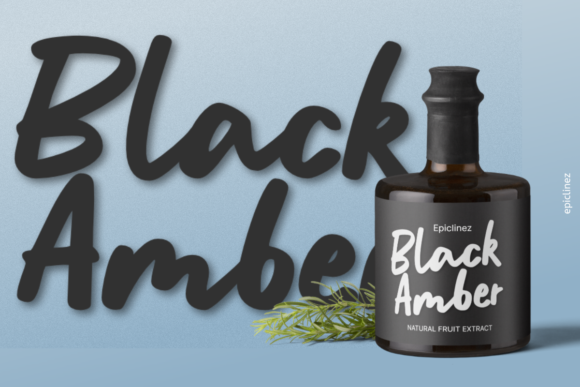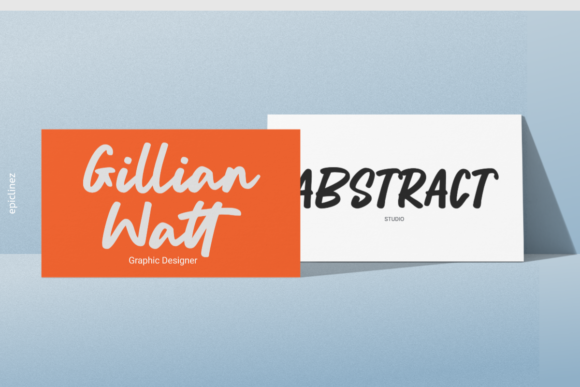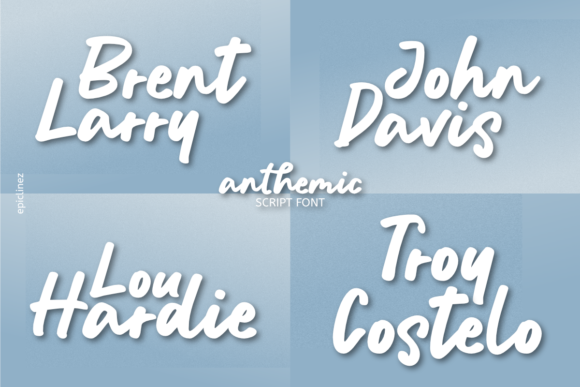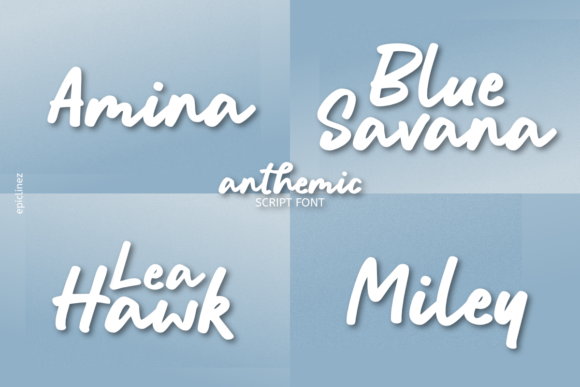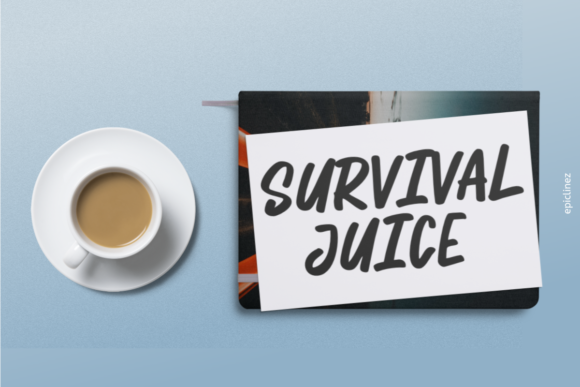
Unlock the Power of Anthemic Font
There’s nothing quite like the rush of creating something truly special – the moment when all the pieces come together and your design or craft takes on a life of its own. You’ve poured your heart and soul into it, and you can’t wait to share it with the world. But, let’s be real – the right font can make all the difference.
That’s where the Anthemic Font comes in – a bold, beautiful script font that’s as versatile as you are. With its PUA encoding, you’ll have access to a world of available glyphs and swashes at your fingertips. Whether you’re a seasoned designer or a crafty creative, the Anthemic Font is the perfect tool to help you bring your vision to life.
Key Features of Anthemic Font
- Font Size and Style: The font family includes 4 weights (Thin, Light, Regular, and Bold) and 3 styles (Upright, Italic, and Oblique), providing a range of options for creative expression.
- Unique Characteristics: The font features a unique blend of modern and vintage elements, with intricate details and subtle textures that evoke a sense of nostalgia and sophistication.
Anthemic Font Review
When I first laid eyes on Anthemic Font, I was struck by its bold and energetic feel. The font’s ✨ unique blend of modern and vintage elements immediately caught my attention, and I could see it being perfect for projects that require a sense of excitement and dynamism.
- The font’s ✨ wide range of weights and styles makes it incredibly versatile and suitable for various design applications, from headlines and titles to body text and captions.
- The font’s ✨ high level of legibility ensures that it remains clear and readable even at small font sizes, making it an excellent choice for digital projects.
However, I do have a few reservations about Anthemic Font. The font’s ⚠️ limited language support might be a concern for designers who need to work with non-Latin scripts. Additionally, the font’s ⚠️ high complexity might make it difficult to customize or modify.
Overall, I think Anthemic Font is a great addition to any designer’s toolkit, but it’s essential to weigh its benefits against its limitations. With its unique style and versatility, it’s perfect for projects that require a bold and energetic feel. However, designers who need to work with non-Latin scripts or require high levels of customization might want to explore other options.
Anthemic Font Practical Application Guide
Tips: Use Anthemic Font for headings and titles to create a bold and eye-catching effect. Experiment with different font sizes and colors to enhance the visual impact.
Tips: Use Anthemic Font for typography-based designs, such as posters, flyers, and business cards. Experiment with layer blending modes and effects to add depth and interest.
Tips: Use Anthemic Font for headings and titles in presentations and documents to create a professional and impactful look. Experiment with different font sizes and colors to enhance the visual effect.
Anthemic Font is ideal for:
– Event promotions and posters
– Business cards and marketing materials
– Social media graphics and ads
– Typography-based designs and art